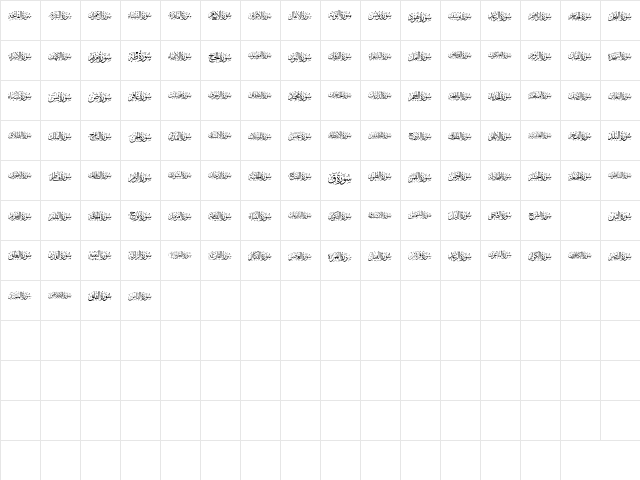
Quran karim 114 Regular Font Preview
Quran karim 114 Regular
Quran karim 114 Regular Font Details
Design Context for Quran karim 114 Typeface
Quran karim 114 takes a measured approach to typography — its balanced proportions and neutral character make it a reliable workhorse for both digital and print work.